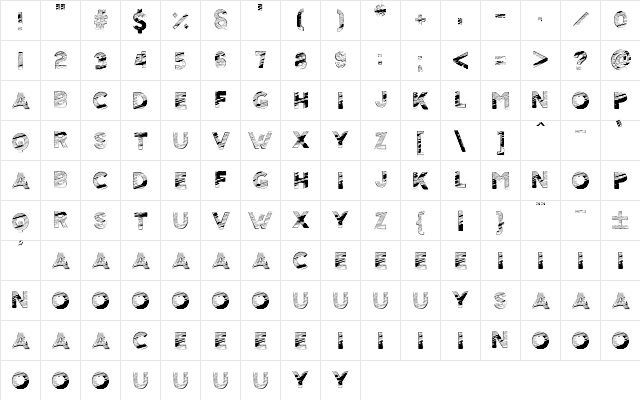
Scolarship Regular
Design Context for Scolarship Typeface
Scolarship is a composed and adaptable typeface that performs quietly and consistently across a wide range of design contexts.